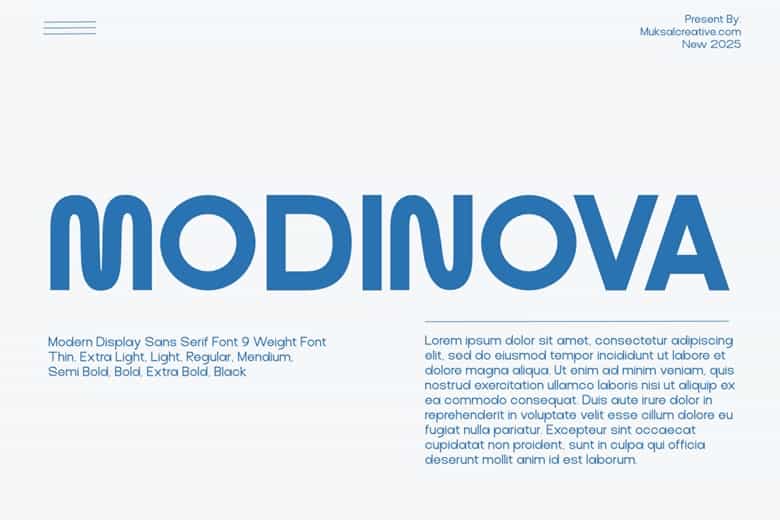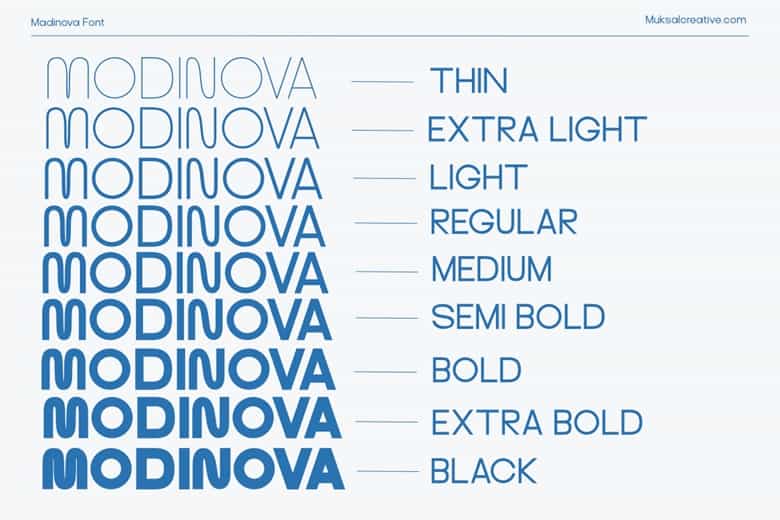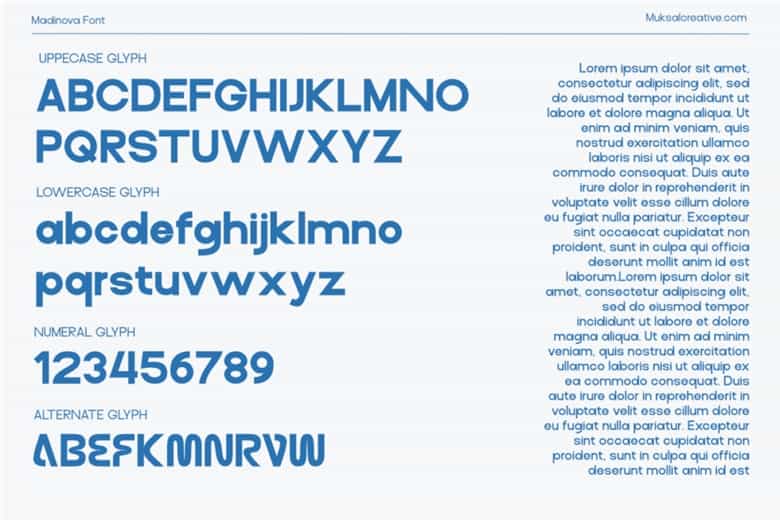
Discover Modinova Font, part of the Sans Serif Display collection—a versatile and unique font perfect for adding a personal touch to your projects. Download it for free and enjoy crafting designs with style, from invitations to social media posts. This font is available exclusively for personal use, giving you the freedom to create without limits. Unlock your creativity with Modinova Font today!
Modinova is a sleek and clean font that is a sans-serif that has been designed with the idea of being both clear and stylish. It contains 9 different styles from Thin to Black, so it can be used for any project from the most delicate text to the loud and impressive headlines. All the characters in Modinova have a balanced and simple shapes and unique details,